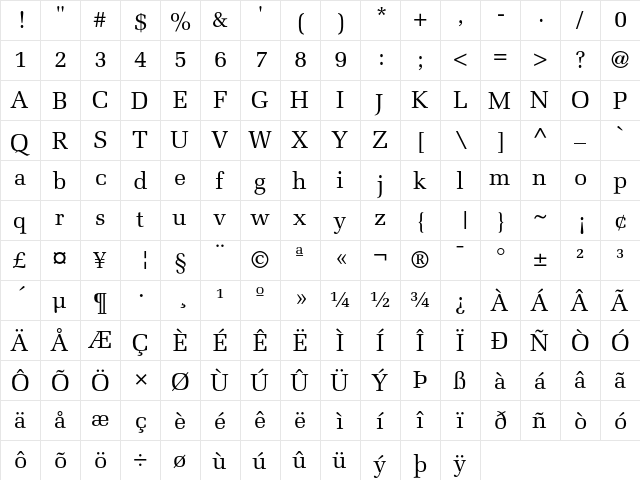
Melior Regular Font Preview
Melior Regular
Melior Regular Font Details
Design Context for Melior Typeface
Melior takes a measured approach to typography — its balanced proportions and neutral character make it a reliable workhorse for both digital and print work.